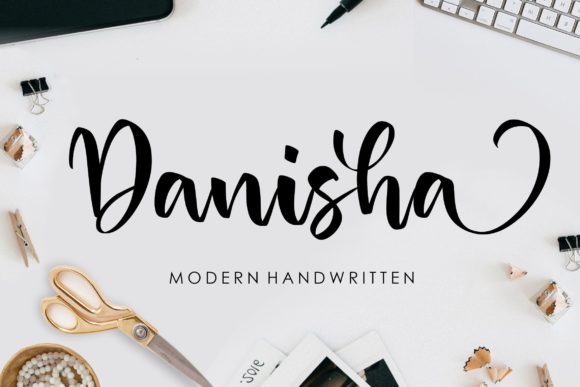
Introducing Danisha Font: The Romantic and Sweet Calligraphy Typeface
Are you looking for a font that can add a touch of elegance and romance to your designs? Look no further than Danisha Font, a beautiful calligraphy typeface that is perfect for a variety of projects. In this article, we’ll take a closer look at Danisha Font, its features, and how you can use it to elevate your designs.
What is Danisha Font?
Danisha Font is a romantic and sweet calligraphy typeface that features characters that dance along the baseline. It has a casual, yet elegant touch that makes it perfect for a wide range of applications. The font has a unique and distinctive style that is sure to make your designs stand out.
Key Features of Danisha Font
- Romantic and Sweet Style: Danisha Font has a romantic and sweet style that is perfect for designs that require a touch of elegance.
- Casual yet Elegant: The font has a casual, yet elegant touch that makes it perfect for a wide range of applications.
- Characters that Dance along the Baseline: The characters in Danisha Font are designed to dance along the baseline, creating a sense of movement and fluidity.
- Versatile: Danisha Font can be used for a variety of purposes, including logos, wedding invitations, headings, t-shirts, letterhead, signage, labels, news, posters, badges, and more.
How to Use Danisha Font
Danisha Font is a versatile typeface that can be used for a wide range of projects. Here are some ideas to get you started:
- Logos: Use Danisha Font to create a beautiful and elegant logo for your business or brand.
- Wedding Invitations: Add a touch of romance to your wedding invitations with Danisha Font.
- Headings: Use Danisha Font to create stunning headings for your blog posts, articles, or website.
- T-Shirts: Create custom t-shirts with Danisha Font for a unique and stylish look.
- Letterhead: Use Danisha Font to create elegant letterhead for your business or personal correspondence.
- Signage: Use Danisha Font to create eye-catching signage for your business or event.
- Labels: Add a touch of elegance to your labels with Danisha Font.
- News: Use Danisha Font to create stunning newspaper or magazine headers.
- Posters: Create beautiful posters with Danisha Font for your event or promotion.
- Badges: Use Danisha Font to create custom badges for your event or organization.
Design Tips for Using Danisha Font
Here are some design tips to keep in mind when using Danisha Font:
- Pair with a Simple Font: Pair Danisha Font with a simple font to create contrast and make your design stand out.
- Use a Consistent Color Scheme: Use a consistent color scheme to create a cohesive look and feel.
- Experiment with Different Sizes: Experiment with different sizes to create visual interest and hierarchy.
- Add Decorations: Add decorations, such as flowers or borders, to enhance the romantic and sweet style of Danisha Font.
Benefits of Using Danisha Font
Here are some benefits of using Danisha Font:
- Unique and Distinctive Style: Danisha Font has a unique and distinctive style that will make your designs stand out.
- Elegant and Romantic: Danisha Font adds a touch of elegance and romance to your designs.
- Versatile: Danisha Font can be used for a wide range of applications.
- Easy to Read: Danisha Font is easy to read, making it perfect for body text and headings.
In conclusion, Danisha Font is a beautiful and versatile calligraphy typeface that is perfect for a wide range of projects. Its romantic and sweet style, casual yet elegant touch, and unique and distinctive characters make it a great choice for designers looking to add a touch of elegance and romance to their designs.